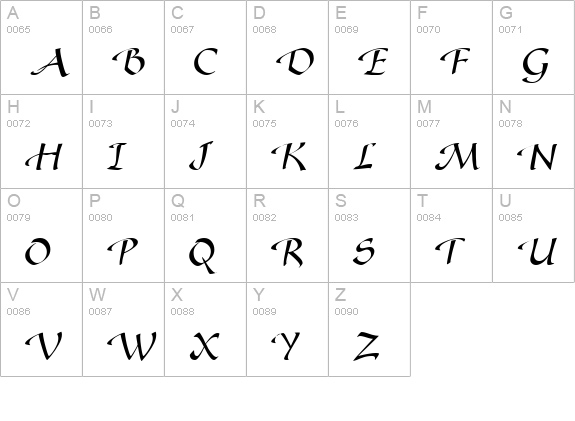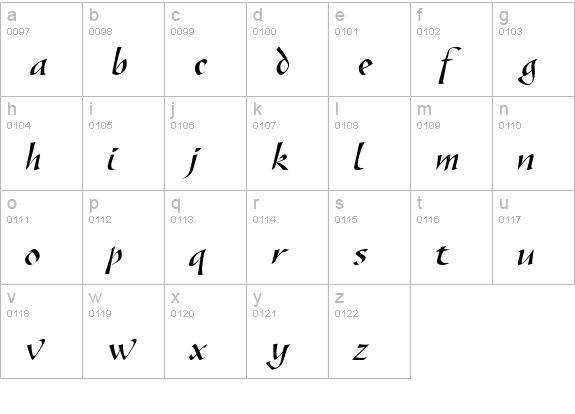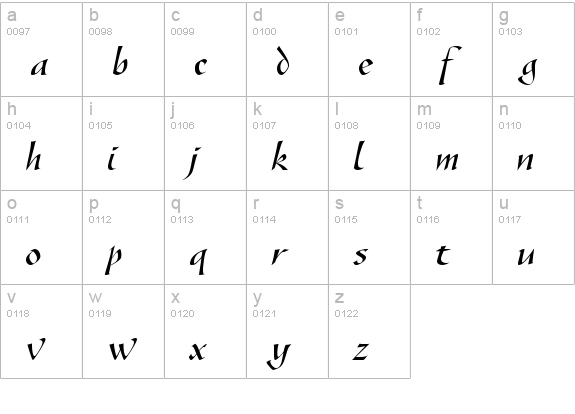
Turnier font is a modern and elegant typeface that exudes sophistication and professionalism. Its clean lines and stylish curves make it perfect for a wide range of design projects, from branding to editorial layouts. The versatility of Turnier font allows it to be used in both digital and print mediums, making it a valuable addition to any designer's toolkit. One of the best things about Turnier font is that it is completely free to download. You can easily access this high-quality typeface at FontsMarket.com, where you can find a variety of other amazing fonts to enhance your creative projects. Don't miss out on the opportunity to add Turnier font to your collection and elevate your design work to the next level.